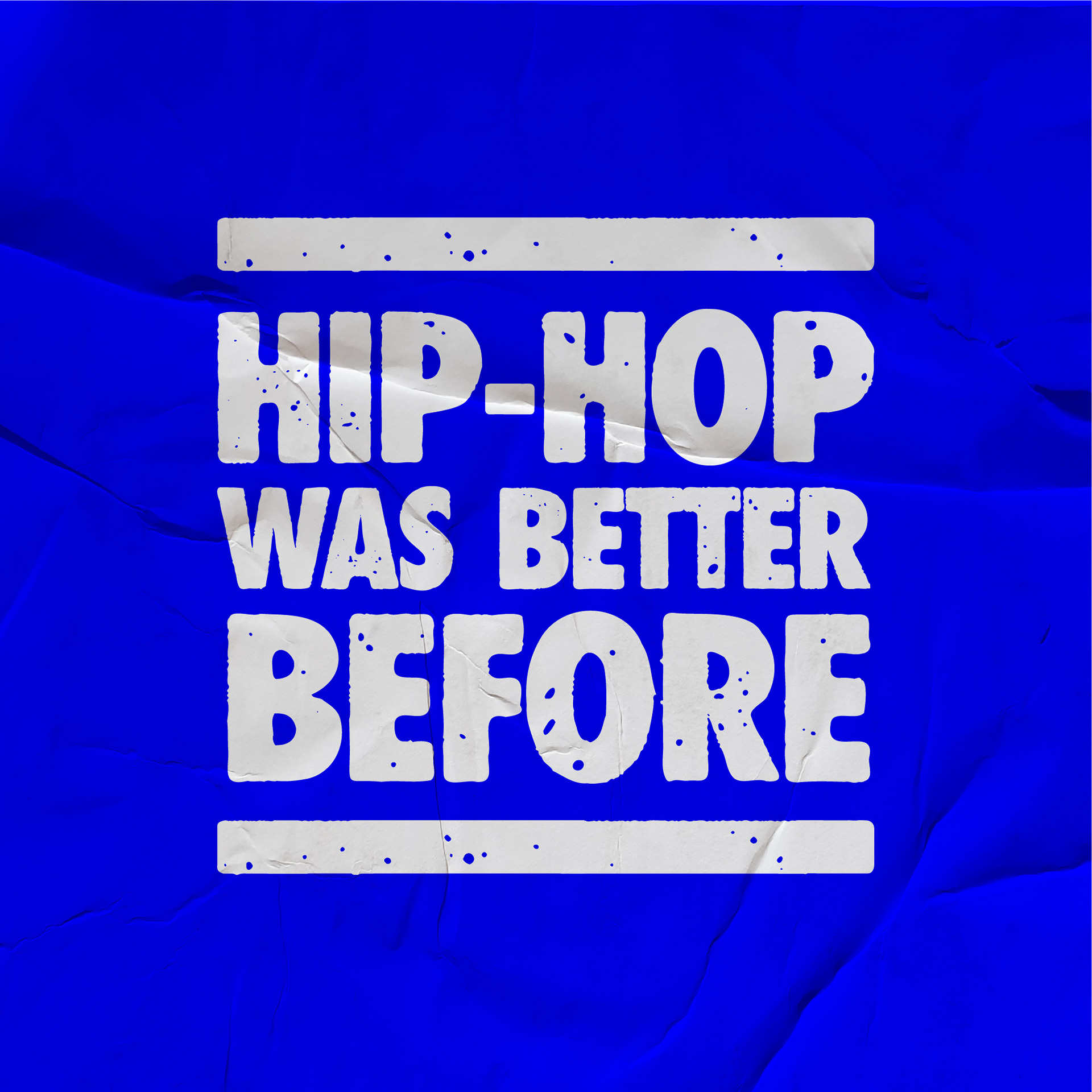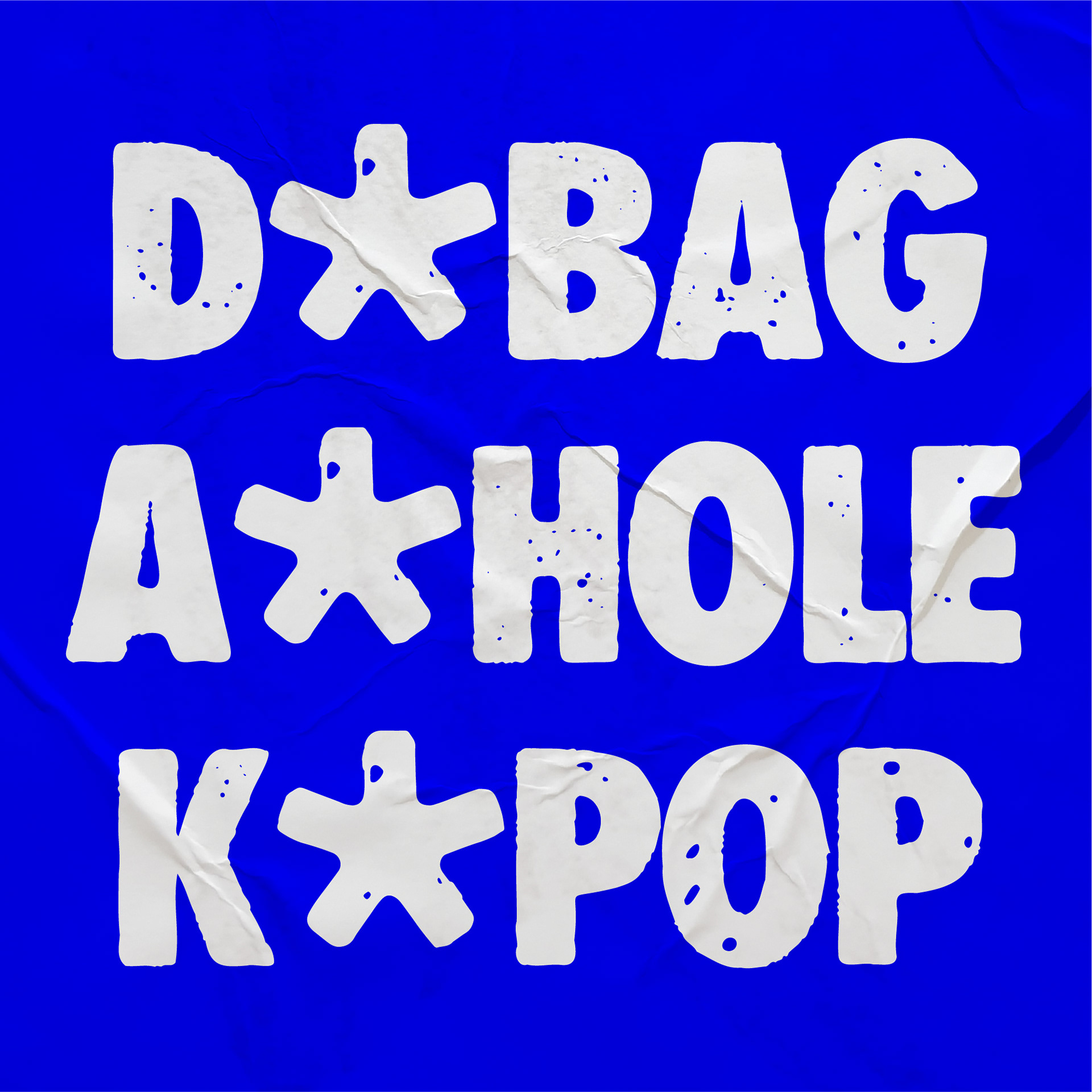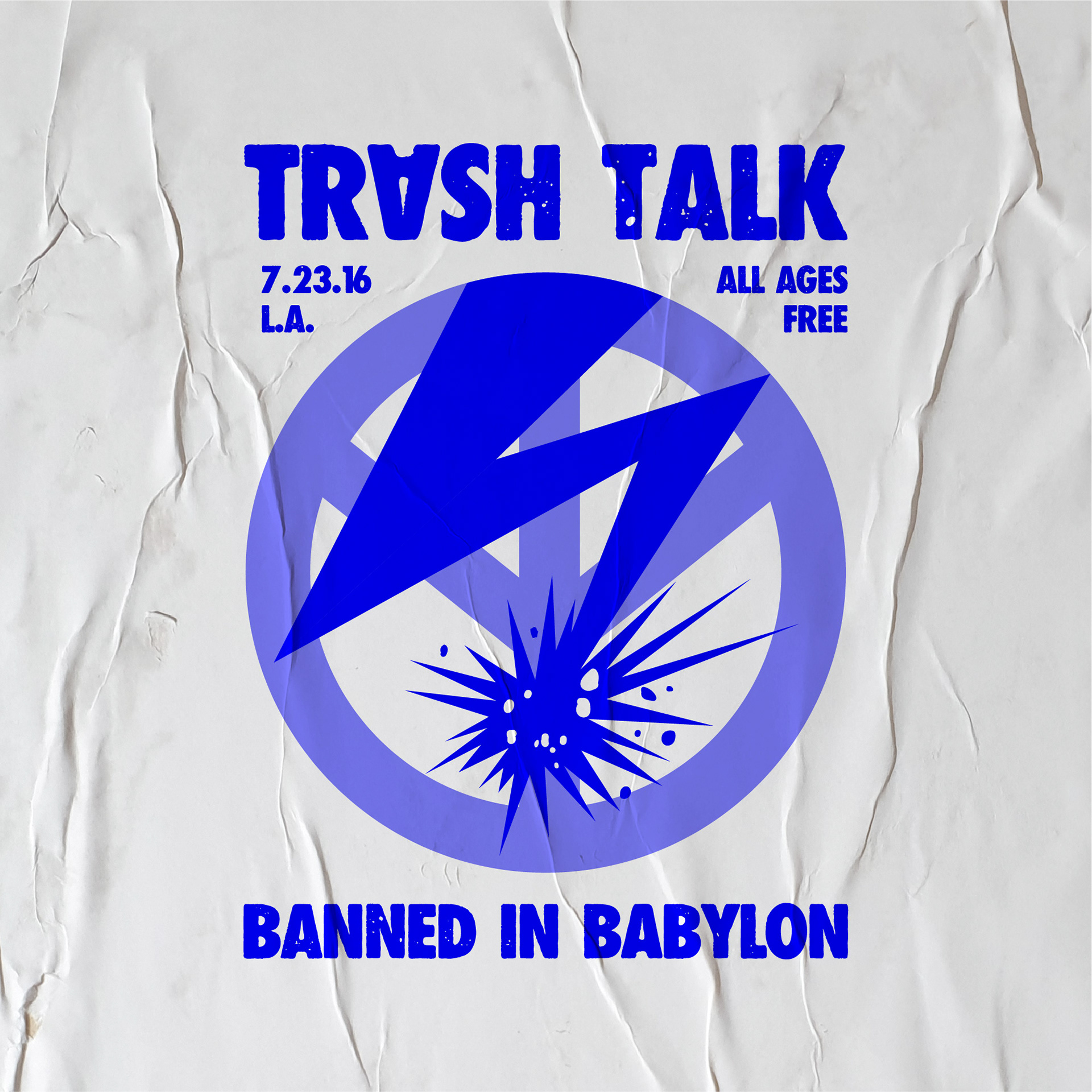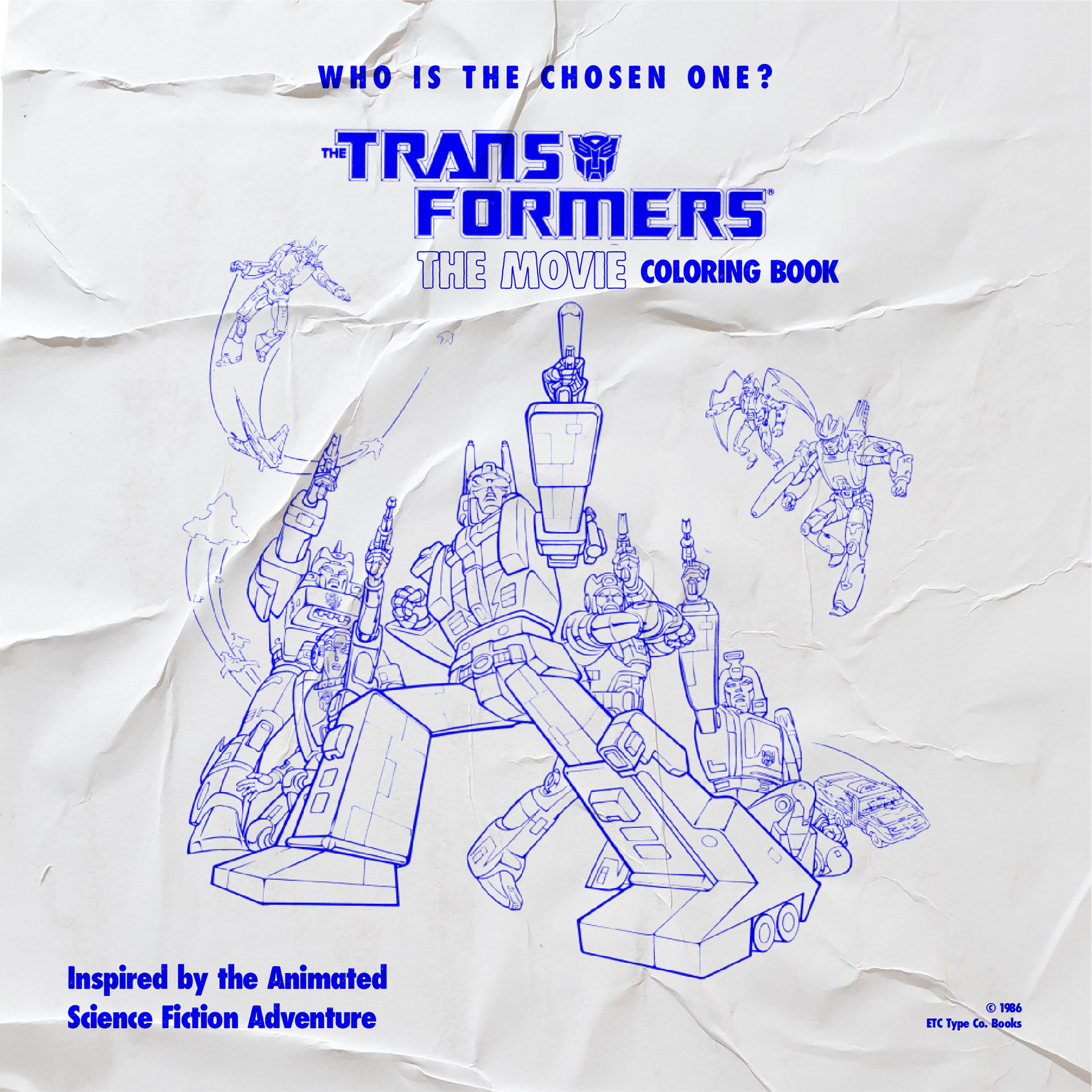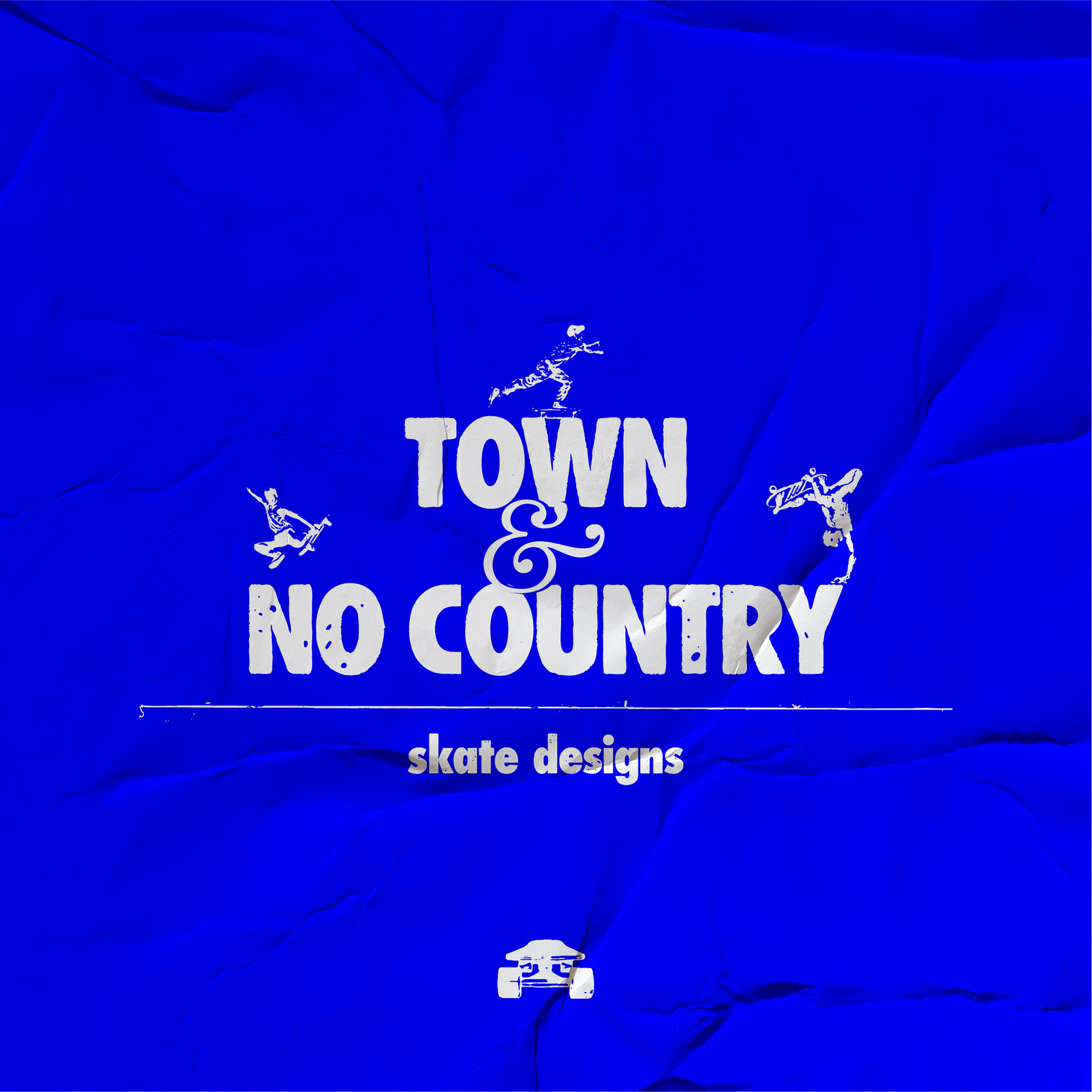
This is my version of Futura – Futura 1986, reinterpreted and processed with a mix of 80s pop culture, punk rock and low-budget printed matter. My affective memory, before I even knew the name or relevance of this typography classic, is of stickers, photocopies and comics, where it appeared in large sizes and sometimes accidentally distorted.
Based on ephemera references and containing some easter eggs in the form of alternate characters, it also includes a bonus set of 65 dingbats/stickers.